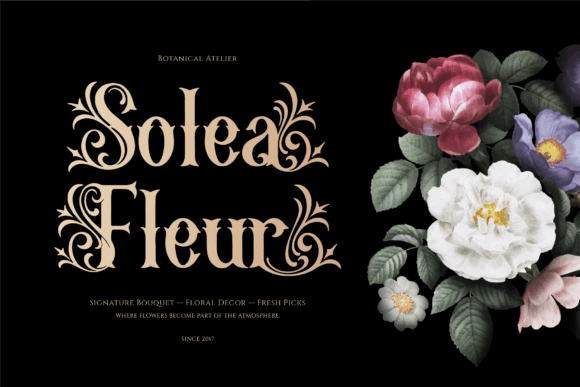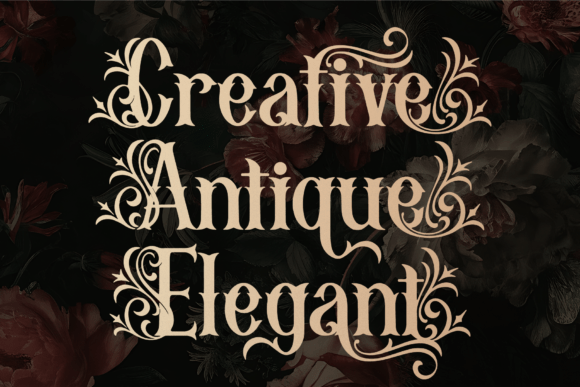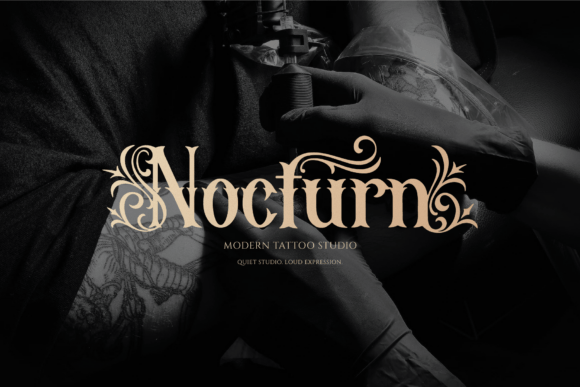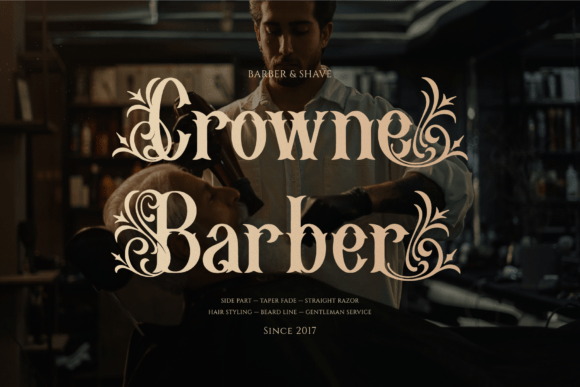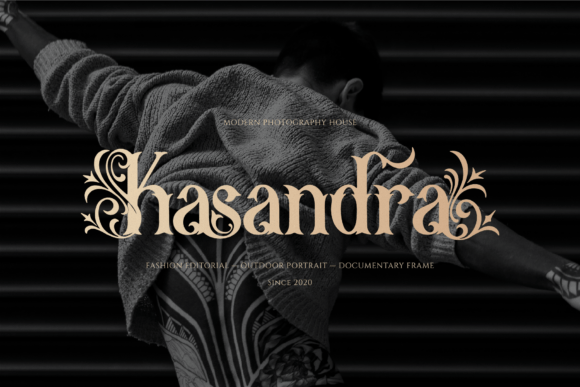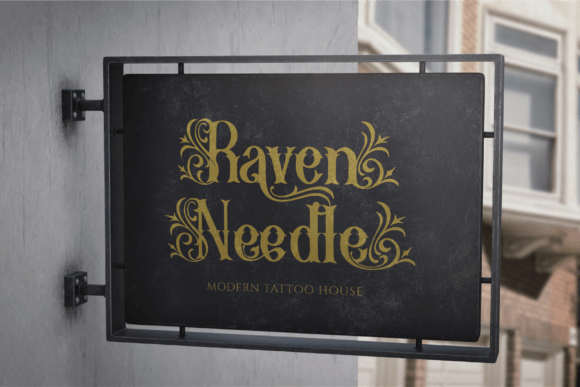
Introduction to Mozathia Font
Step into a world of dark romance and baroque opulence with Mozathia, an exquisite decorative display font.
Striking a magnificent balance between historical gothic architectures and luxury vintage calligraphies, this typeface features strong structural stems crowned with sharp, dagger-like serifs Its true crowning glory lies in its theatrical ornamental accentsโshowcasing sweeping, vine-like floral swashes and classical flourishes that bloom elegantly from the letter terminals.